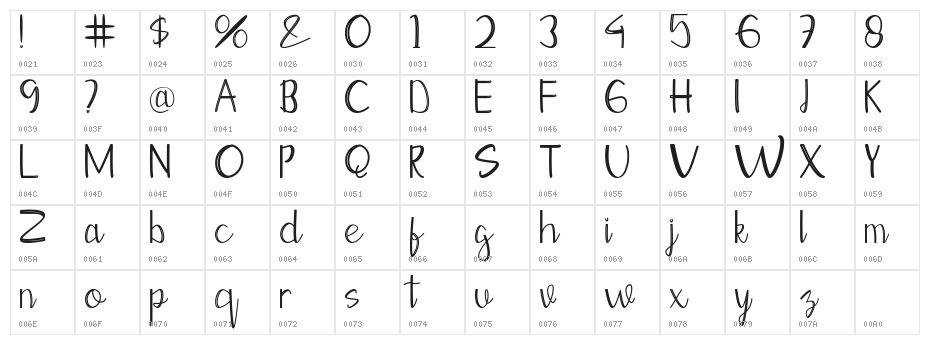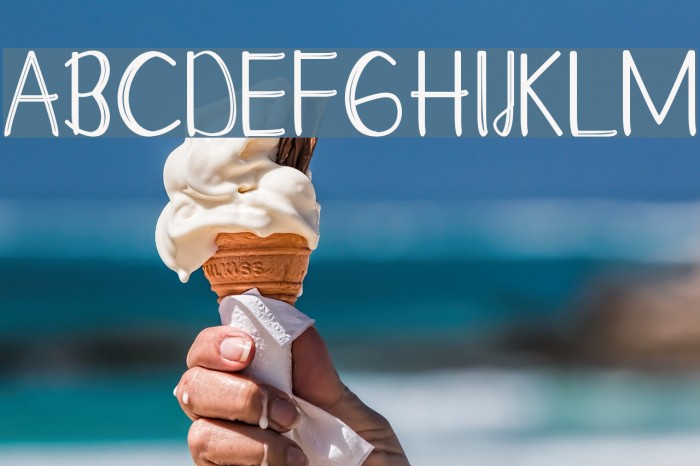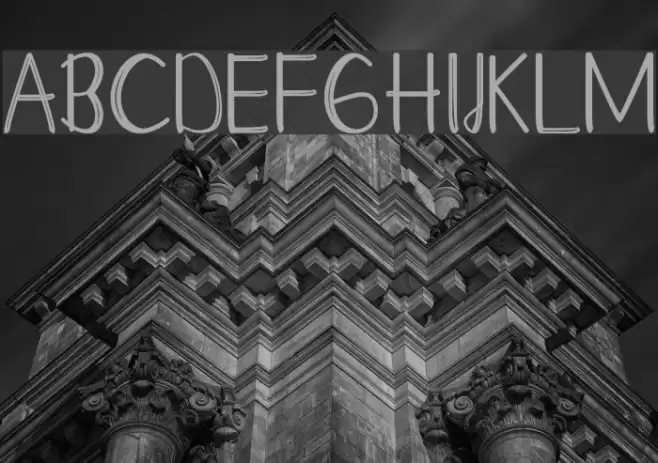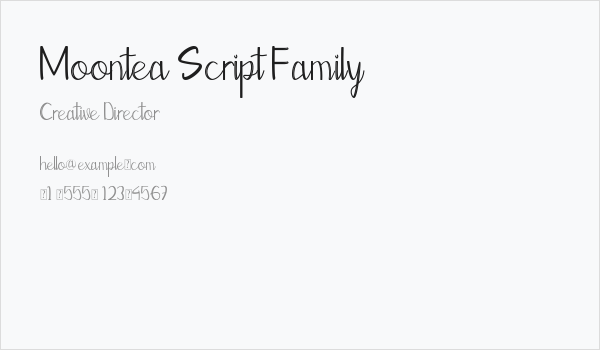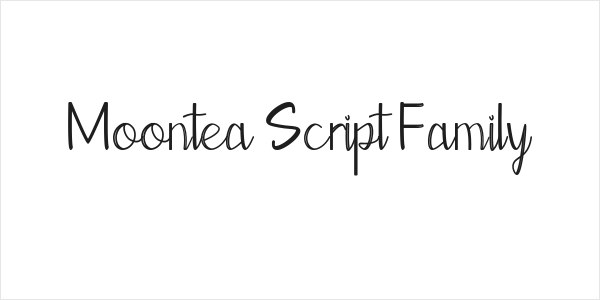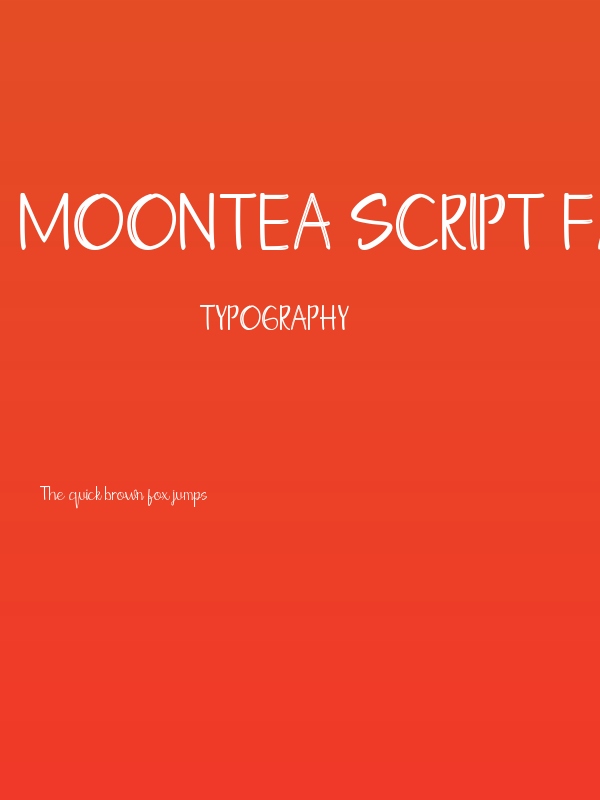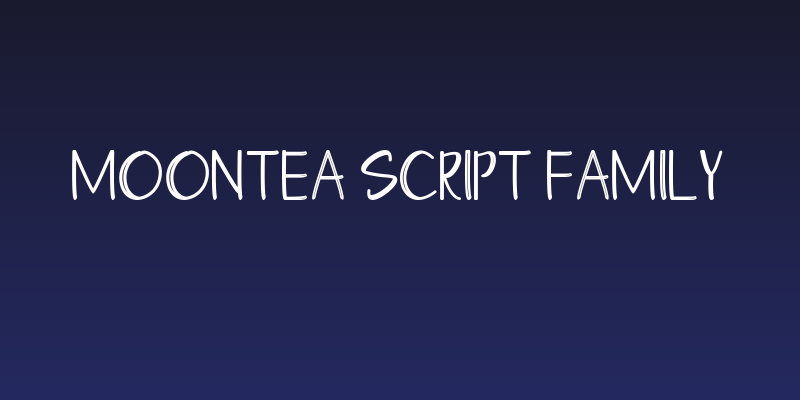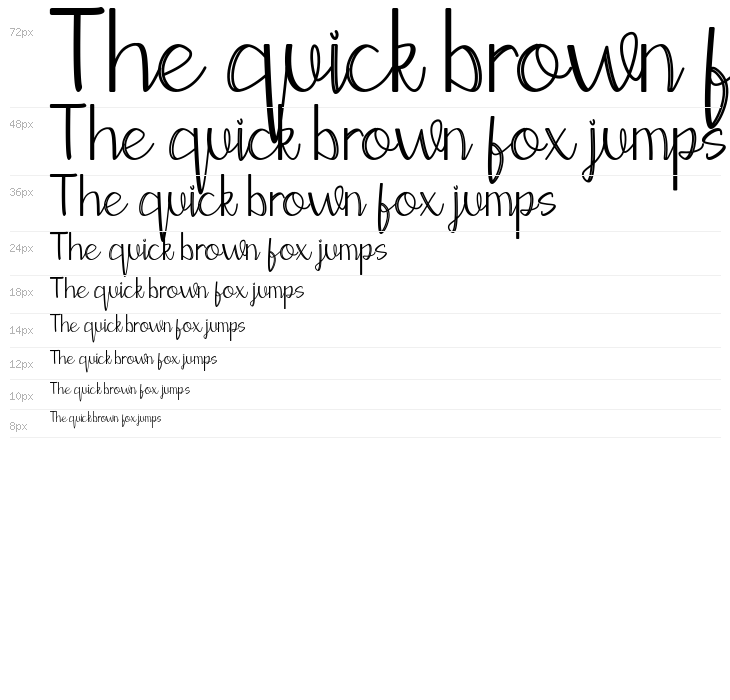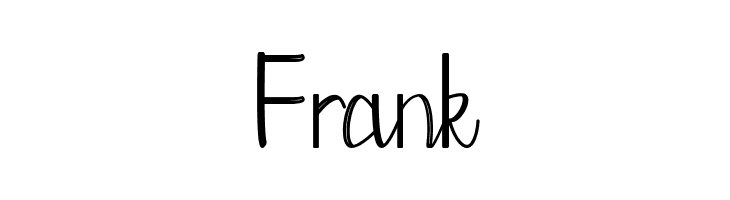
Moontea Script Family Font
Moontea Script Family Description
This font features a playful and elegant script style with a handwritten appearance. The uppercase letters are bold and slightly elongated, giving a sense of sophistication and flair. The lowercase letters are more fluid and connected, enhancing the handwritten feel. Numbers are clear and consistent with the overall style, while special characters maintain the playful aesthetic. The strokes are smooth and consistent, creating a harmonious look across all characters.
| Use Case | Logos, Invitations, Social Media |
| Proposed Projects | Ideal for wedding invitations, greeting cards, branding projects, and social media graphics. |